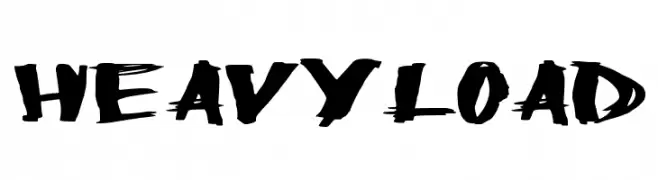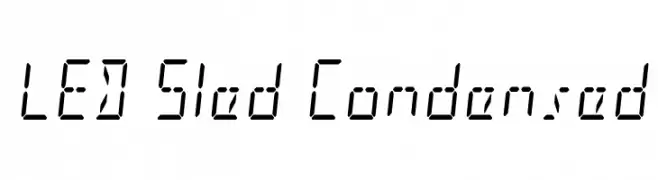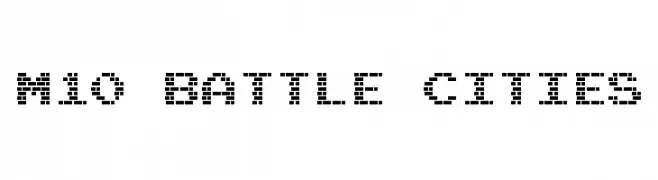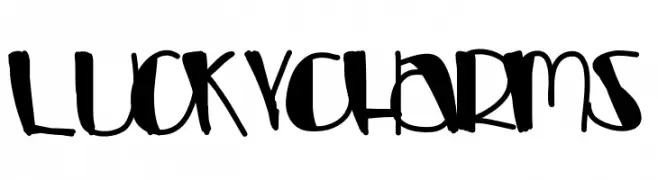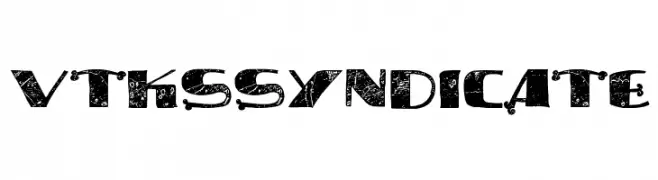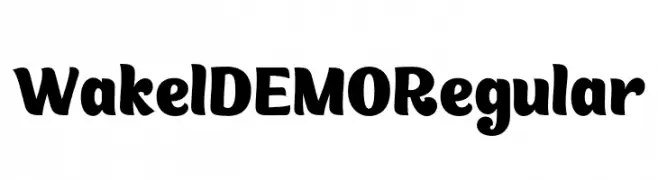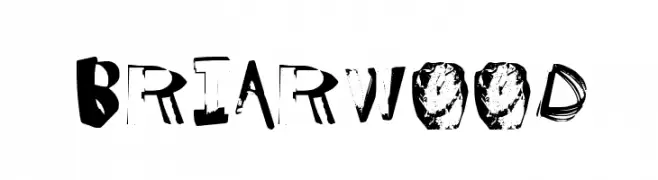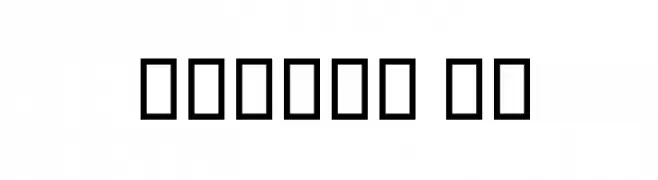
A bold, brush-style font with dynamic and artistic strokes.
A digital, segmented font with a futuristic LED display style.
A pixelated, retro-style font inspired by classic video game graphics.
A bold, playful handwritten font with a whimsical and friendly style.
A bold, playful font with rounded edges and a whimsical style.
A bold, distressed font with a rugged, handmade appearance.
A playful, rounded font with a friendly and casual style.
A decorative font with intricate, Middle Eastern-inspired designs and bold, angular strokes.
A playful, bold handwritten font with rounded, slightly irregular letterforms.